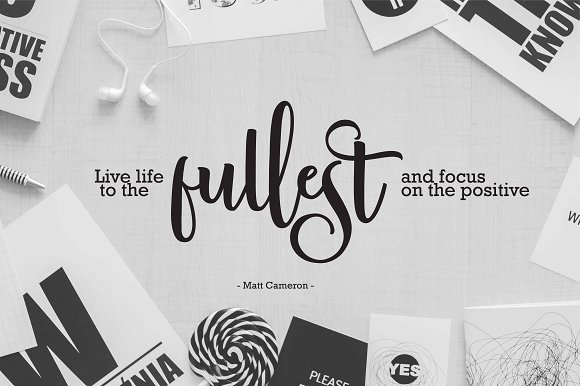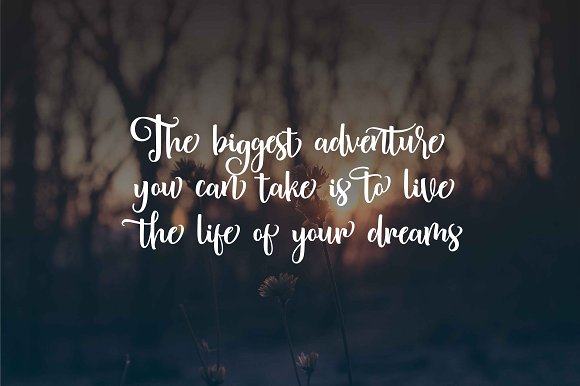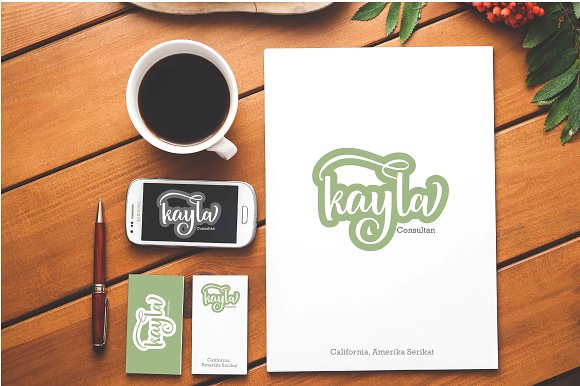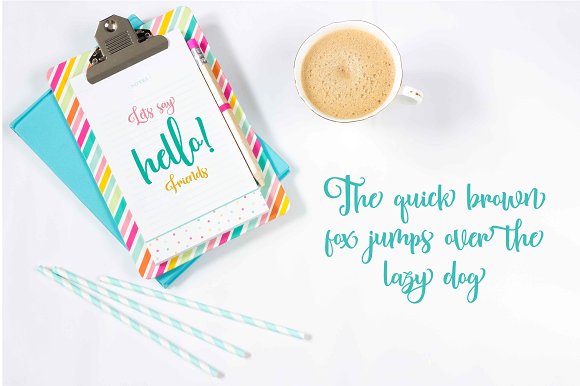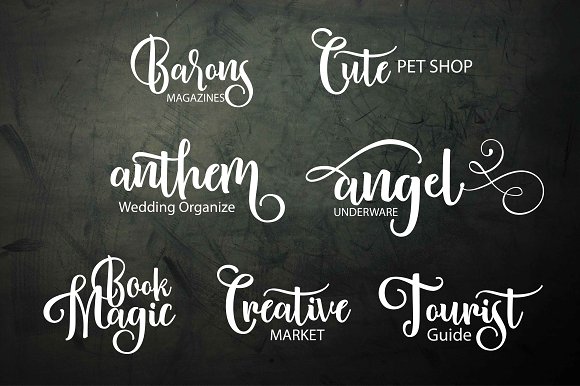
Introduction to Risthi Font
Have you ever found yourself staring at a blank page, struggling to bring your creative vision to life? It’s a feeling many designers know all too well. But what if the right font could be the spark that sets your project ablaze? For designers seeking the perfect finishing touch, Risthi Font is an exciting new design resource that’s about to change the game.
Risthi Font is a modern, handwritten script that exudes elegance and sophistication. Its clean lines, fluid curves, and organic feel make it the perfect choice for a wide range of creative projects, from wedding invitations to advertising campaigns.
Key Features of Risthi Font
- Risthi Font is a high-quality design resource, ideal for creative projects that require a unique and elegant touch.
- The font family includes multiple styles, each with a unique character set, ensuring versatility in your creative project.
Honest Review: Risthi Font
I recently had the chance to work with the Risthi Font on a creative project, and I must say, I was pleasantly surprised. As a designer, I’m always on the lookout for high-quality design resources that can elevate my work, and the Risthi Font definitely delivers.
One of the things that works well with the Risthi Font is its sleek and modern design. The font is perfect for creating a professional and sophisticated look, and it’s great for use in a variety of contexts, from branding and marketing materials to digital products and websites.
- ✨ Unique and modern design
- ✨ High-quality and crisp typography
- ✨ Perfect for creating a professional and sophisticated look
However, one limitation of the Risthi Font is that it’s not as versatile as some other fonts on the market. While it’s great for creating a professional look, it may not be the best choice for more playful or creative projects.
Overall, I’m impressed with the Risthi Font, and I would definitely recommend it to designers who are looking for a high-quality and modern font to use in their creative projects.
Tips for Getting the Most Out of Risthi Font
When using Risthi Font, keep the following tips in mind: use it with a transparent background to create a seamless design, experiment with different font sizes and styles to add visual interest, and pair it with other high-quality design resources to create a cohesive look.
Common Use Cases for Risthi Font
The Risthi Font is suitable for a variety of creative projects, including graphic design, digital art, and typography-based designs. It’s also a great choice for logos, branding, and other visual identity projects where a high-quality font is essential.